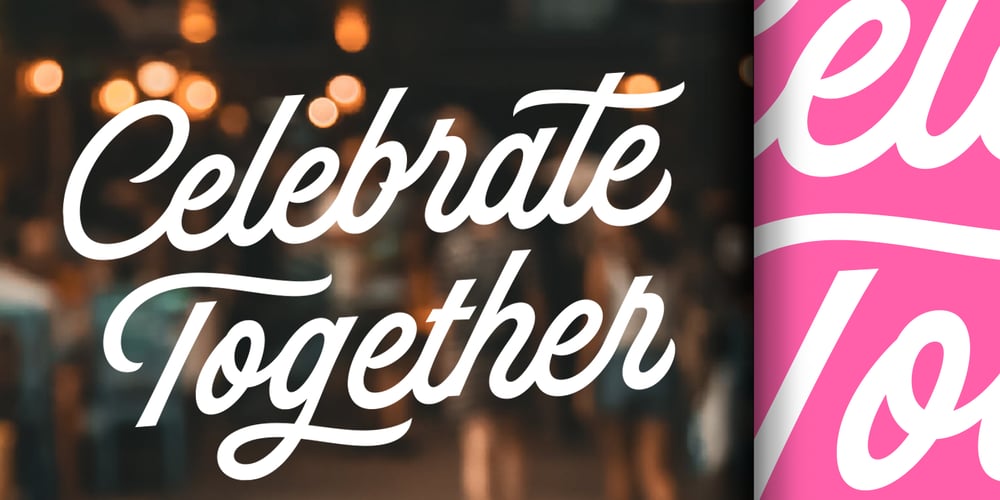
Hot Script Font Family was designed by Maximiliano R. Sproviero and published by Sproviero Type. Hot Script contains 5 styles and family package options. Say hello to another of my hot and trendy scripts, Hot Script! I got the inspiration for this one in the world of sign painters. My neighbourhood, and more specifically the avenue were I live, is very well known for its ”parrillas”: For those who don’t know what this means, well, it may be better to live the experience rather than reading these lines. Villa Urquiza is full of restaurants with an argentinian flavour, with a ”gauchezco” feel. Here you can taste some of the best ”asados” in the entire world. Ok, this made me hungry, let’s go back to type: These amazing venues still mantain genuine elements from the past, and try to preserve the beauty of the handcrafted. Parrillas of Buenos Aires have all their walls, windows and doors lettered with chalk or paint. I’ve always wanted to make a font out of that, and Hot Script is my first attempt. I believe the results are great! Hot Script follows some rules of the flat brush (see terminals, and tails especially in caps) but its contrast of thicks and thins was manually altered to make the font better for a wider range of uses. Although the sexy curves and versatility of Hot seemed to be enough, I decided to spice it a little more by creating some layers for it: Hot Script Shine Solo or Hot Script Shades Solo combined with Hot Script will give outstanding results. (Look for them combined in the posters above and dare to deny it!) Go make your project more savory! This font is Hot, hot, hot!